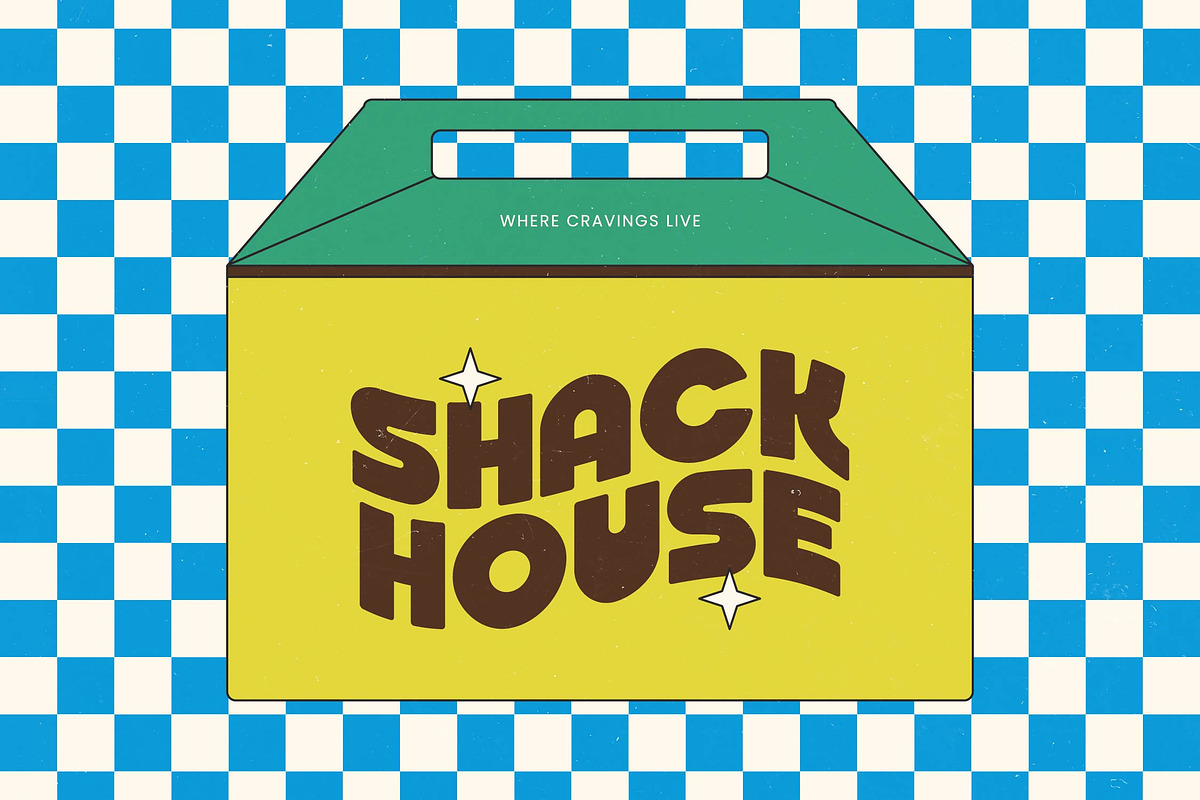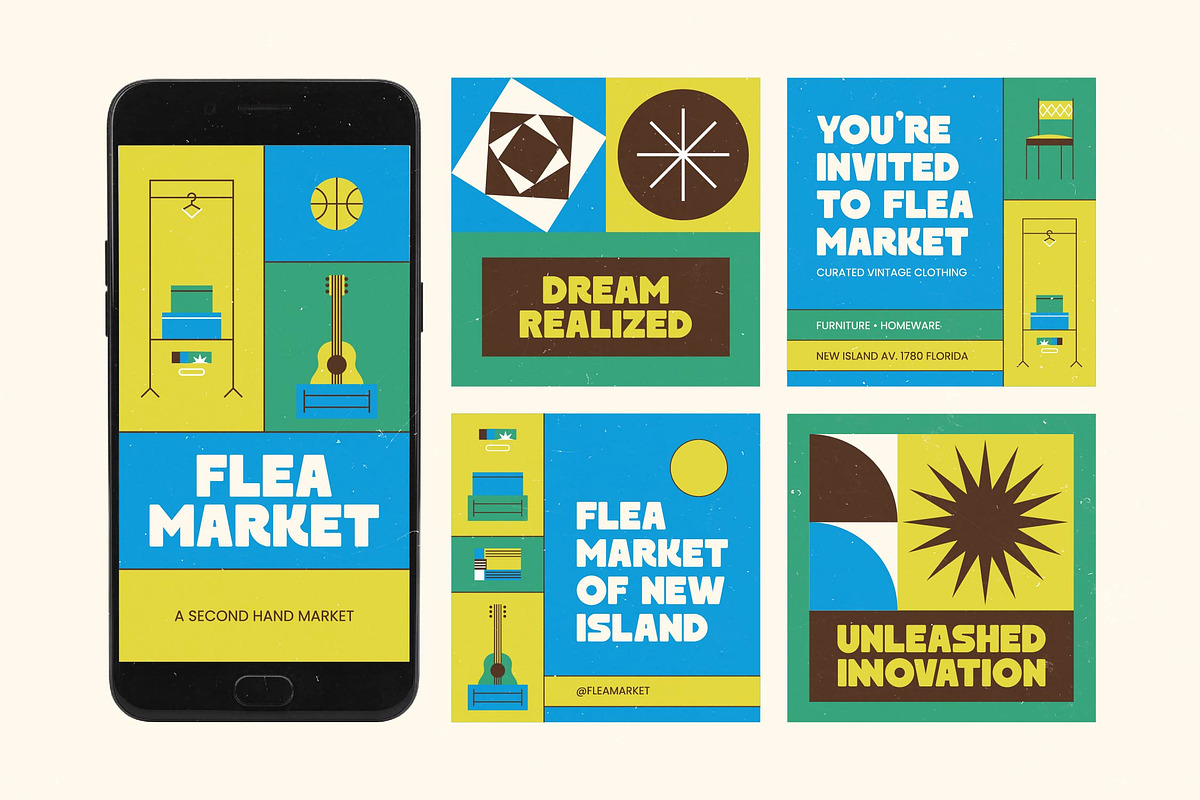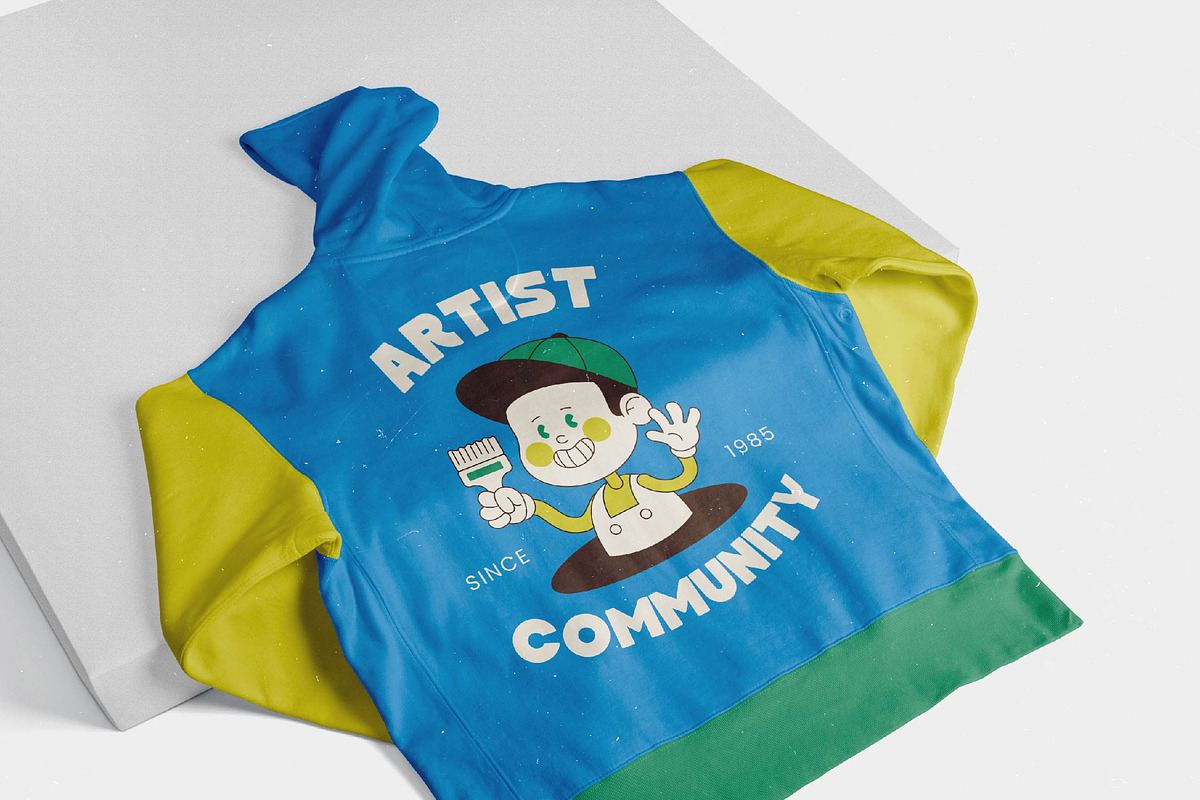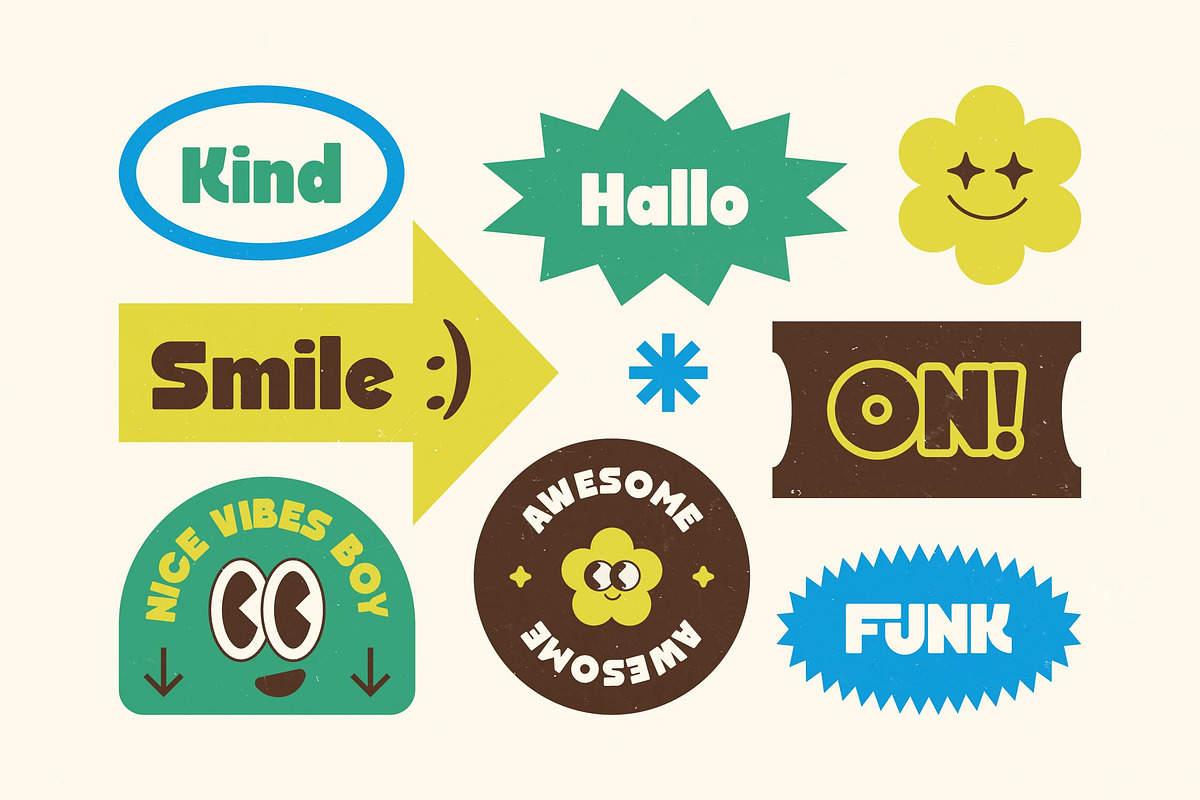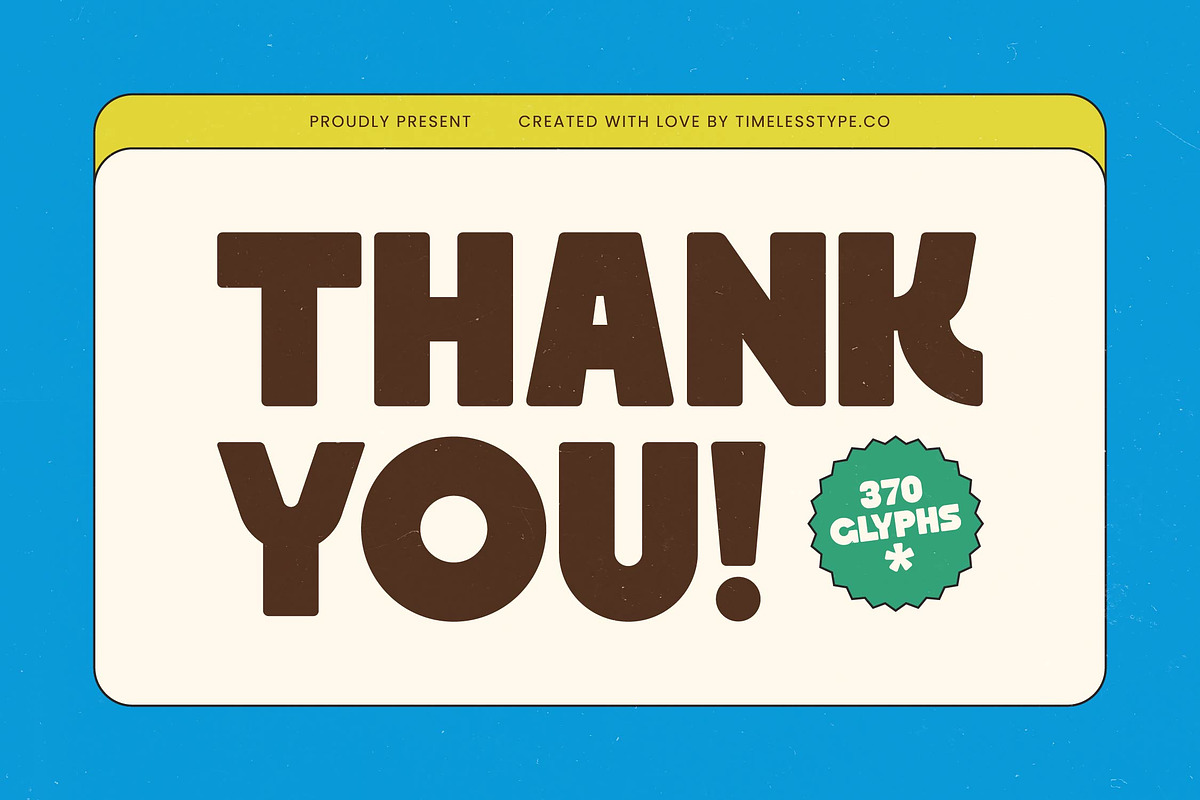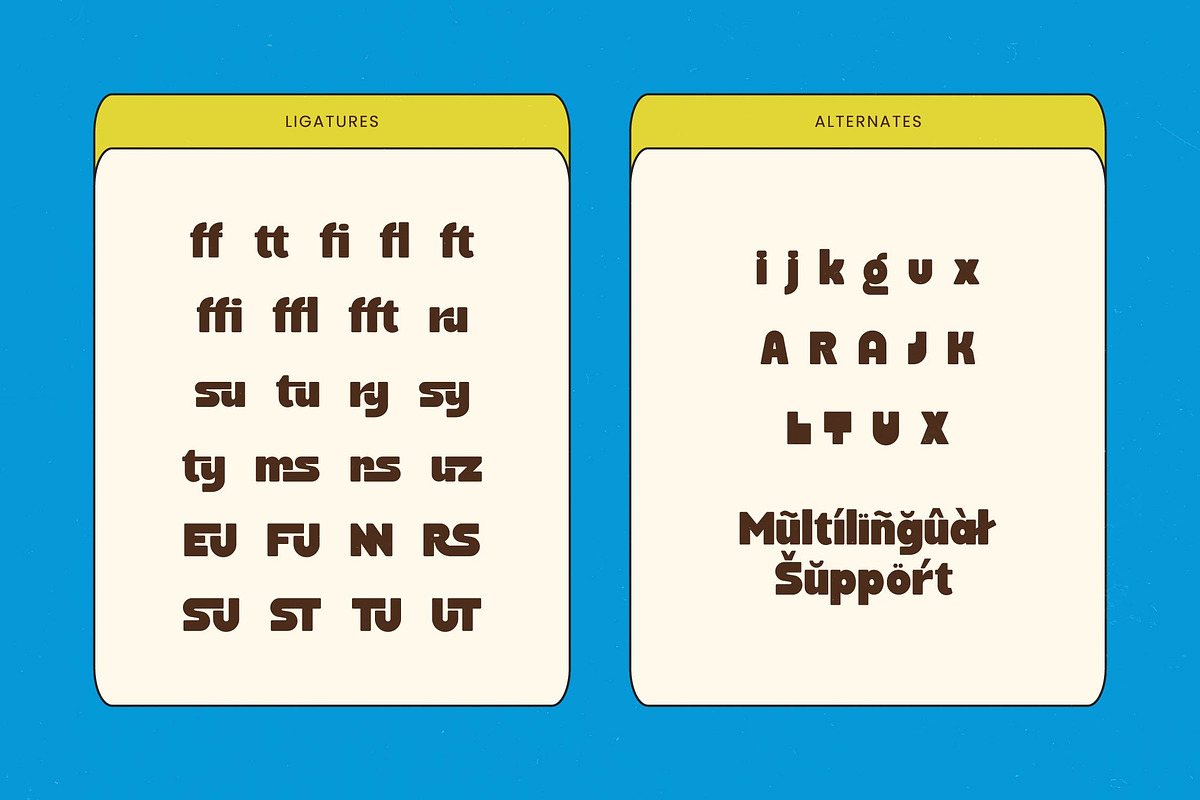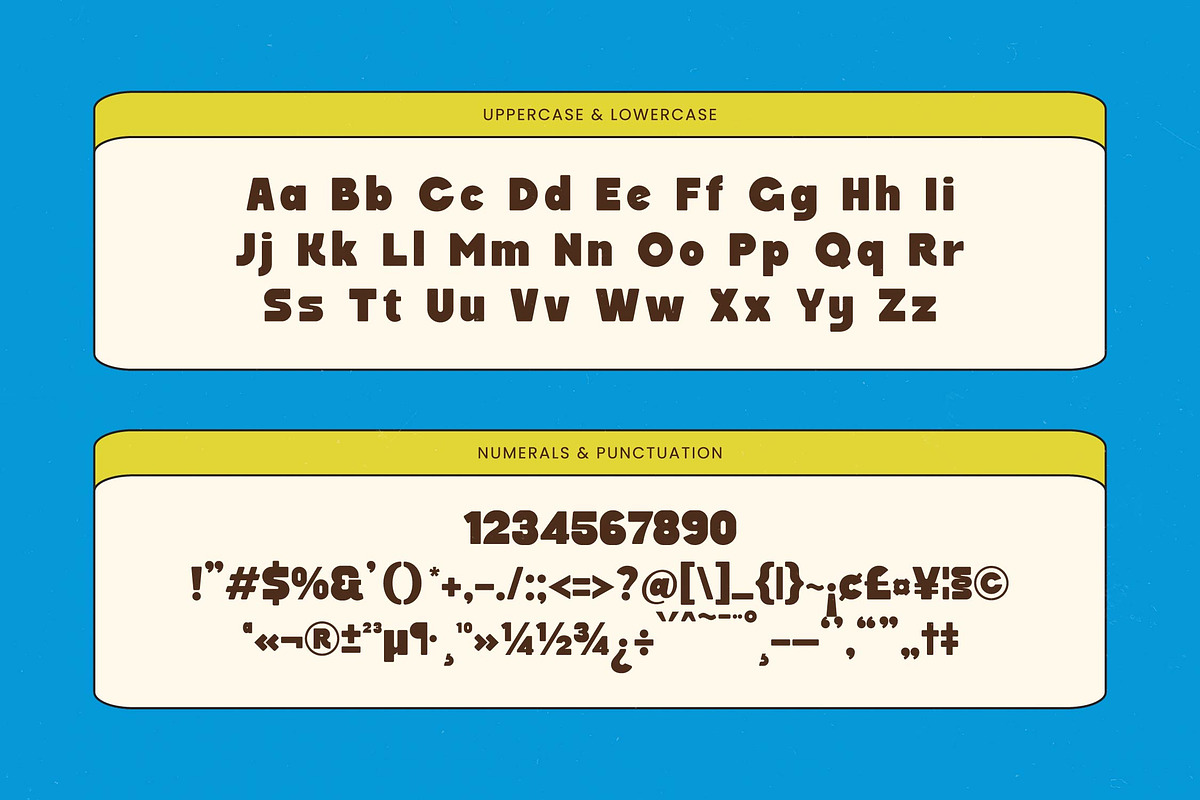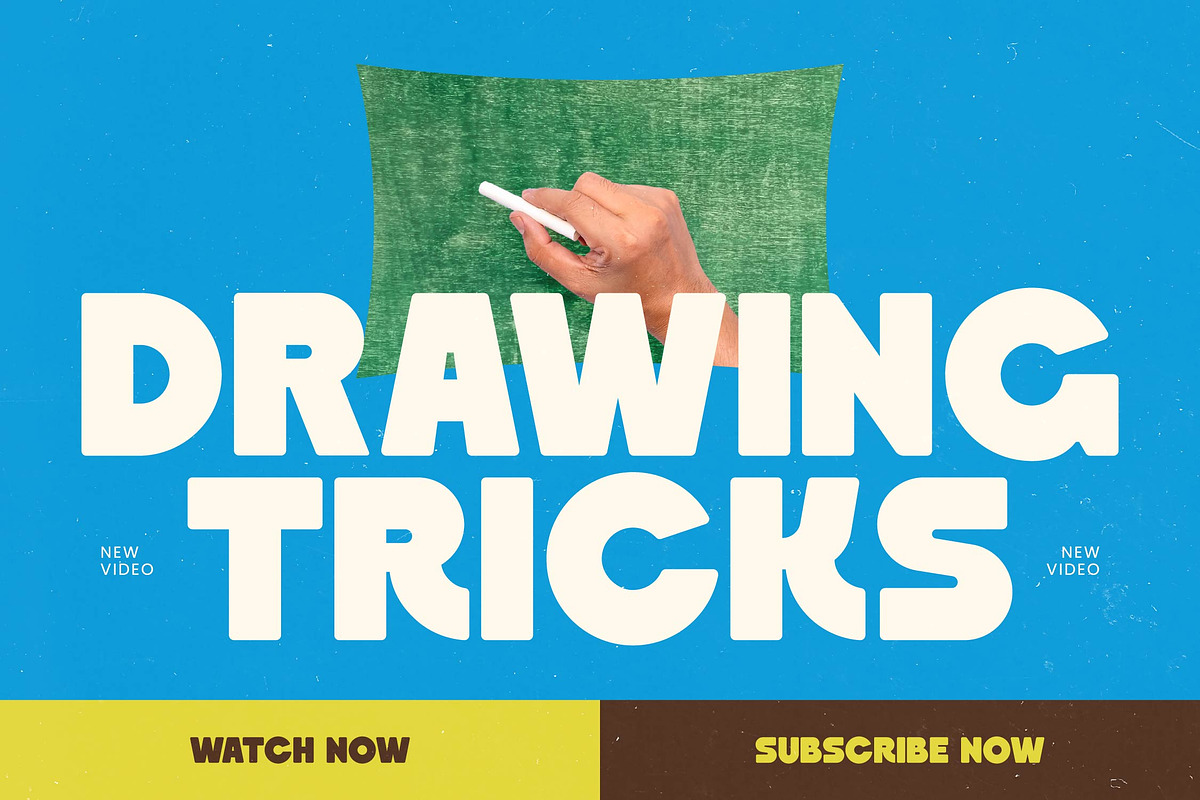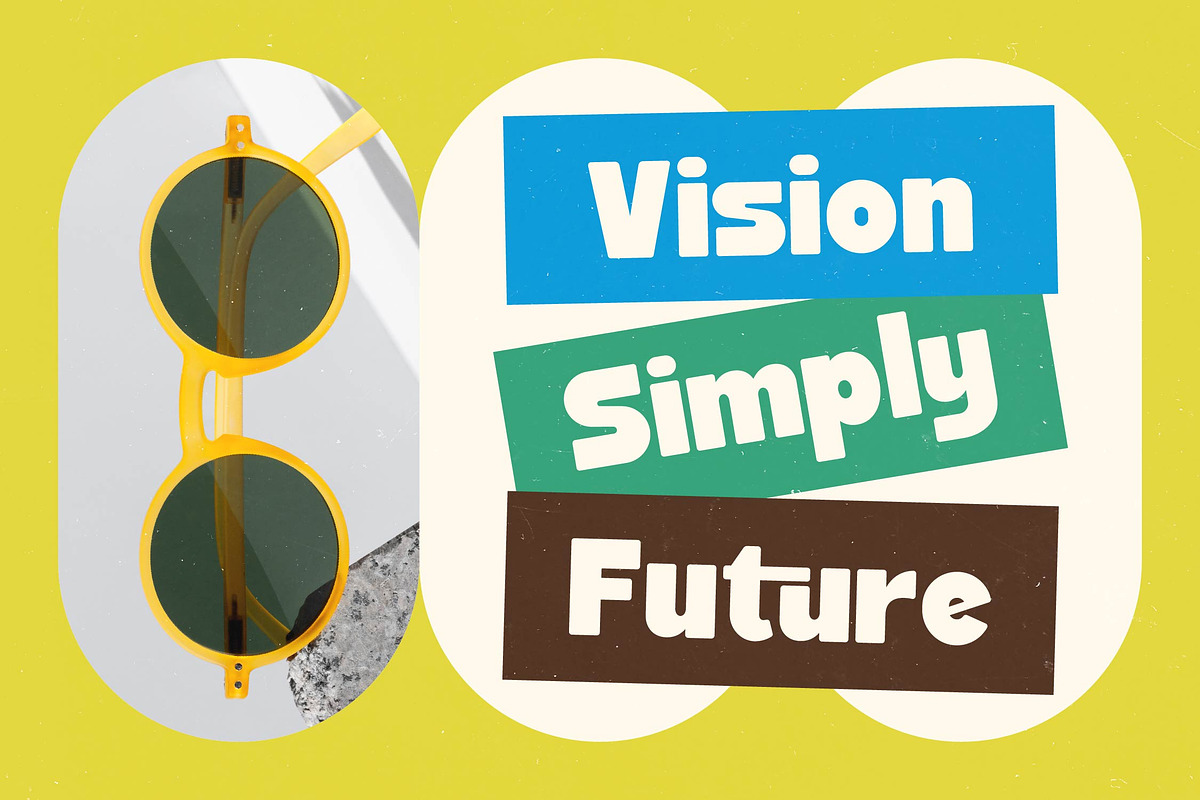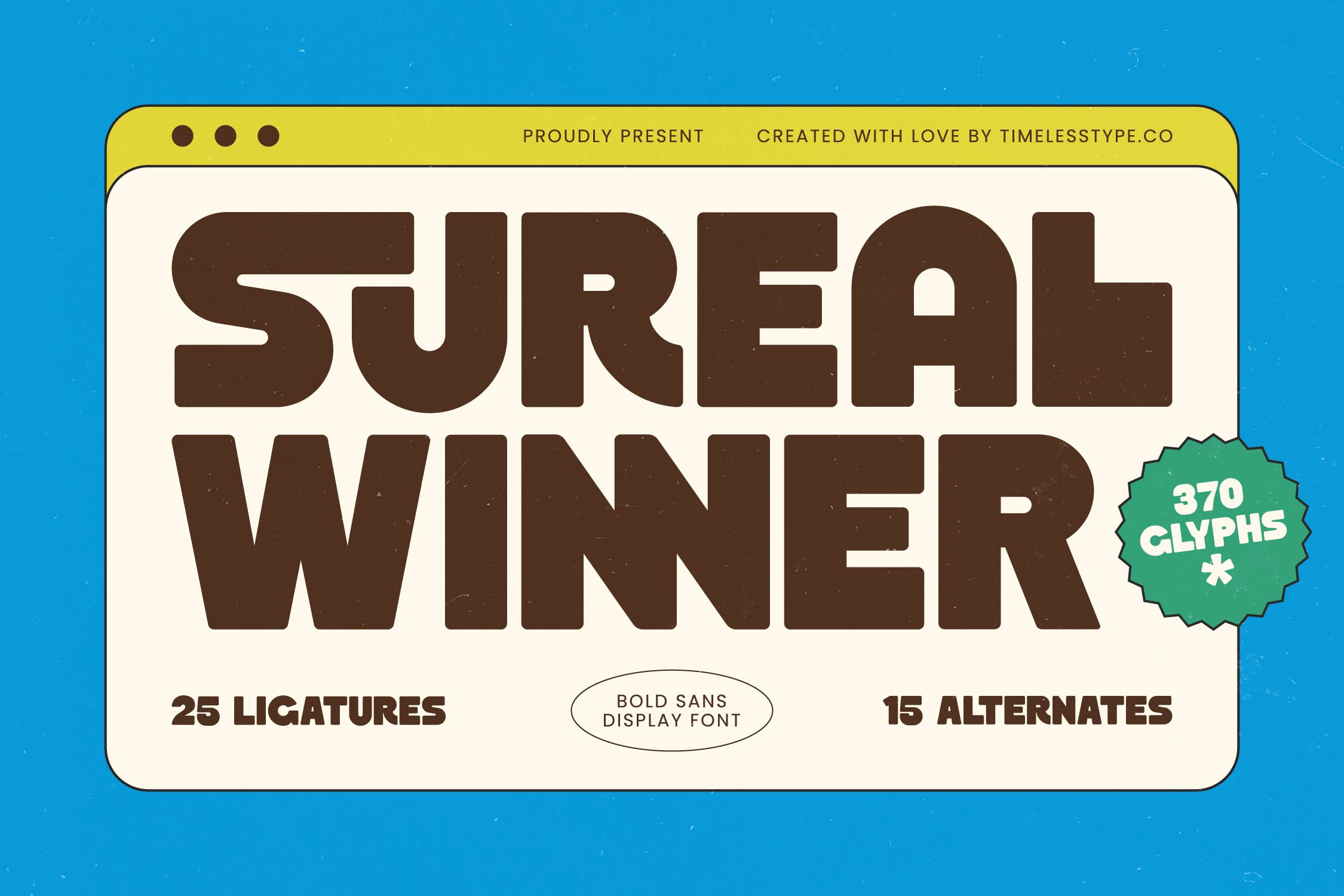
Sureal Winner Bold Display Font
Elevate your visual narrative with the striking presence of Sureal Winner, a typeface designed to command attention and celebrate bold uniqueness. It is more than just a font; it is a statement of creative confidence for projects that refuse to blend into the background.
Inspired by the vibrant energy of retro-futurism and the playful proportions of vintage display typography, this font captures a sense of joyful experimentation. It draws its soul from the intersection of classic blocky letterforms and modern geometric precision, creating a look that feels both nostalgic and ahead of its curve.
This font provides a powerful alternative to the traditional modern serif display by offering a chunky, high-impact aesthetic that defines luxury typography in a new way. As a compelling substitute for a high-contrast serif, this versatile editorial font is engineered specifically to deliver a lasting branding impact.
Perfectly aligned with the current modern serif trend that favors expressive personality over simple minimalism, this typeface is a must-have for contemporary toolkits. It stands out among editorial display fonts for its ability to anchor a page with character-driven typography that speaks to a sophisticated audience.
From the initial stages of logo design to the final execution of a global branding identity, this typeface performs with exceptional clarity. Its bold forms are ideal for high-end editorial layouts, custom packaging solutions, chic wedding invitations, and fast-paced fashion branding.
The technical versatility of this package is enhanced by a wide selection of ligatures and alternates that provide endless creative possibilities. With its included swashes and full multilingual support, including a comprehensive range of international characters, your designs will be ready for any global stage.
- Ligature 25 Alternate 15